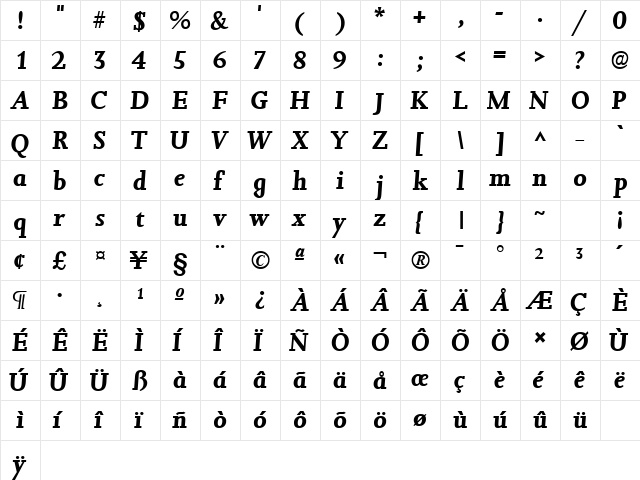
KelterSSK Bold Italic Font Preview
KelterSSK Bold Italic
Design Context for KelterSSK Typeface
KelterSSK is a composed and adaptable typeface that performs quietly and consistently across a wide range of design contexts. Its italic angle brings a sense of urgency and motion to the letterforms. Its bold stroke weight gives it real presence on the page.
Pro Tip: Use KelterSSK for emphasis, pull quotes, and subheadings where its slanted energy can add rhythm to the layout.